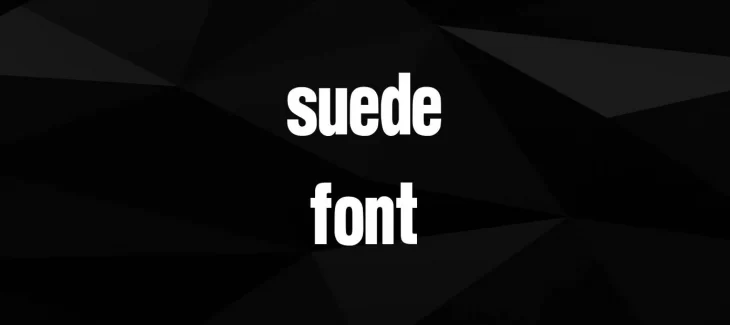
Suede Font is a sans-serif typeface created by Type Associates foundry in 1990. The design of this font was influenced by the popular Futura typeface. However, Suede has a more humanist design with softer curves. The font includes multiple weights and styles, making it versatile for a variety of design projects.
One drawback of Suede is that its letterforms are quite condensed, which can make it difficult to read in smaller sizes. Another downside is that the font does not include any italic styles. Overall, This is a strong sans-serif typeface with a modern design.
Who Used Suede Font?
This font is most commonly used for headlines and body copy in both digital and print designs. The font works well for both long blocks of text and shorter phrases. Suede can also be used for branding and logos, as well as web design.
You can utilize this font for various purposes like- headlines of blog posts, website headings, infographics, presentations, product packaging, posters, and much more. This sans-serif typeface is quite popular among the masses because of its unique and stylish design.
Suede Font Family Appearance
NameSuede Font
DesignerType Associates
StyleSans Serif
What is the cloned version of Suede Font called?
The cloned version of Suede is called futura font. It is a free font that is available for download from the Google Fonts website.
Is Suede a good font for a website?
Yes, the Font can be a good font for website purposes. You can utilize this font to give your website a more modern and sleek look. Additionally, the Font can also make your website’s text more easily readable for the viewers.